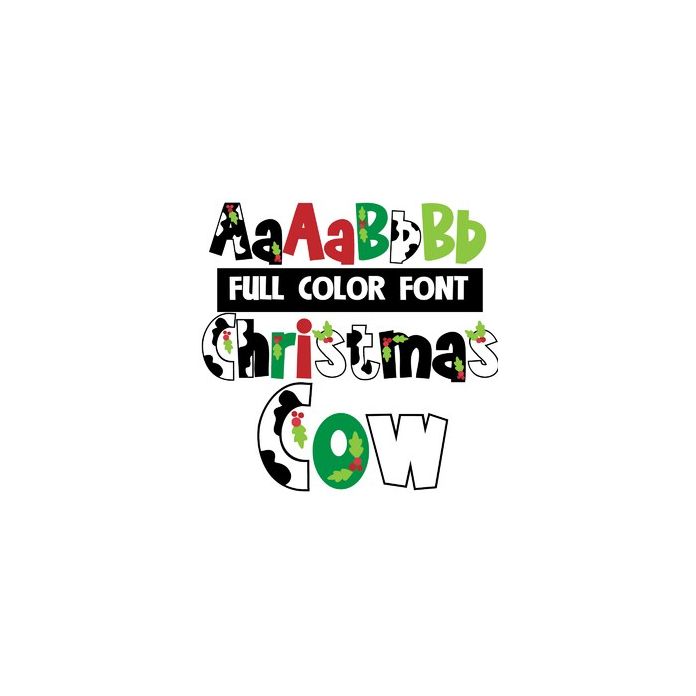
This full-color font features cow print and holly throughout. There is a secondary upper and lowercase that you can access through Silhouette's glyph map.